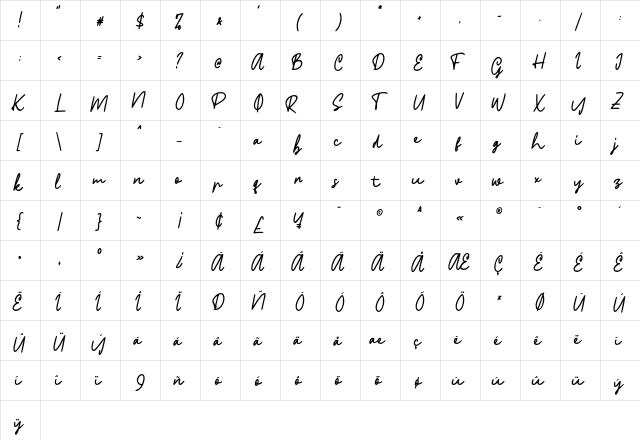
Phillips Regular
| Foundry | Good Java Studio |
| Designer | Good Java Studio |
Design Context for Phillips Typeface
Phillips is a composed and adaptable typeface that performs quietly and consistently across a wide range of design contexts.